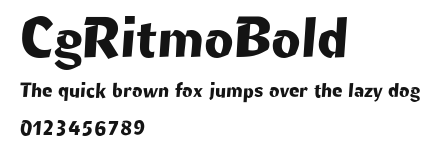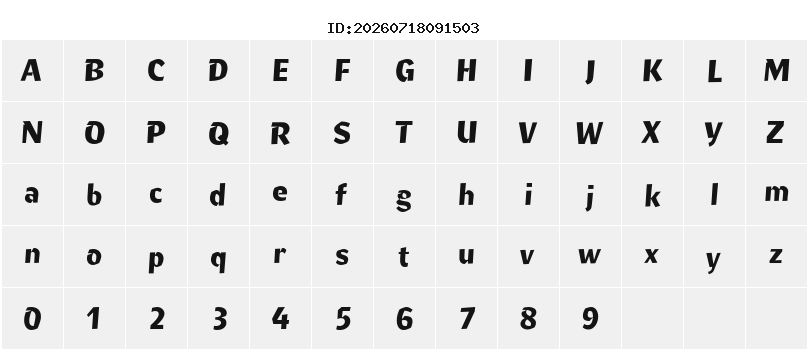
• Font Name: CgRitmoBold
• Full Font Name: CgRitmoBold
CgRitmoBold.ttf is a modern, elegant sans-serif font designed for ultimate readability and visual harmony. Perfect for branding, headlines, web design, and print materials.